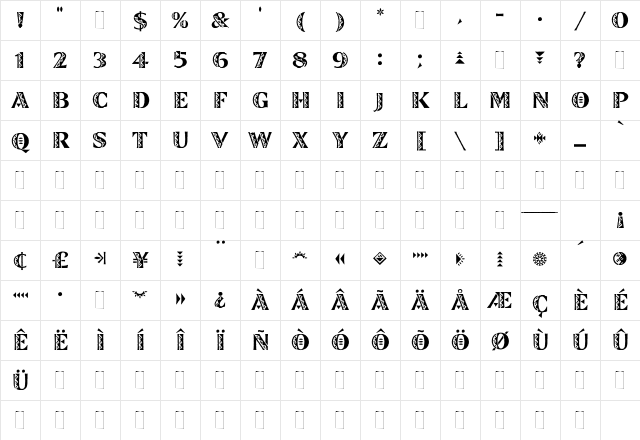
Zinjaro Regular Free Font
Zinjaro Regular
Zinjaro Family
Complete Zinjaro Regular glyph index. Displaying only characters natively supported by Zinjaro Regular font.
Design Context for Zinjaro
Zinjaro is a composed and adaptable typeface that performs quietly and consistently across a wide range of design contexts.